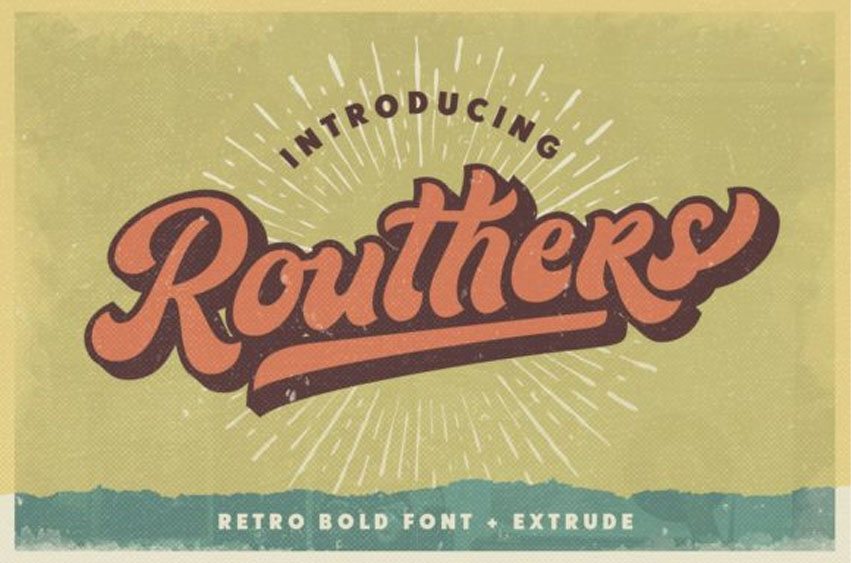
Routhers Font
Routhers Font is a bold and retro handwritten font.
This original look will appeal to a wide range of crafty ideas, from letterheads and titles, to stationery.